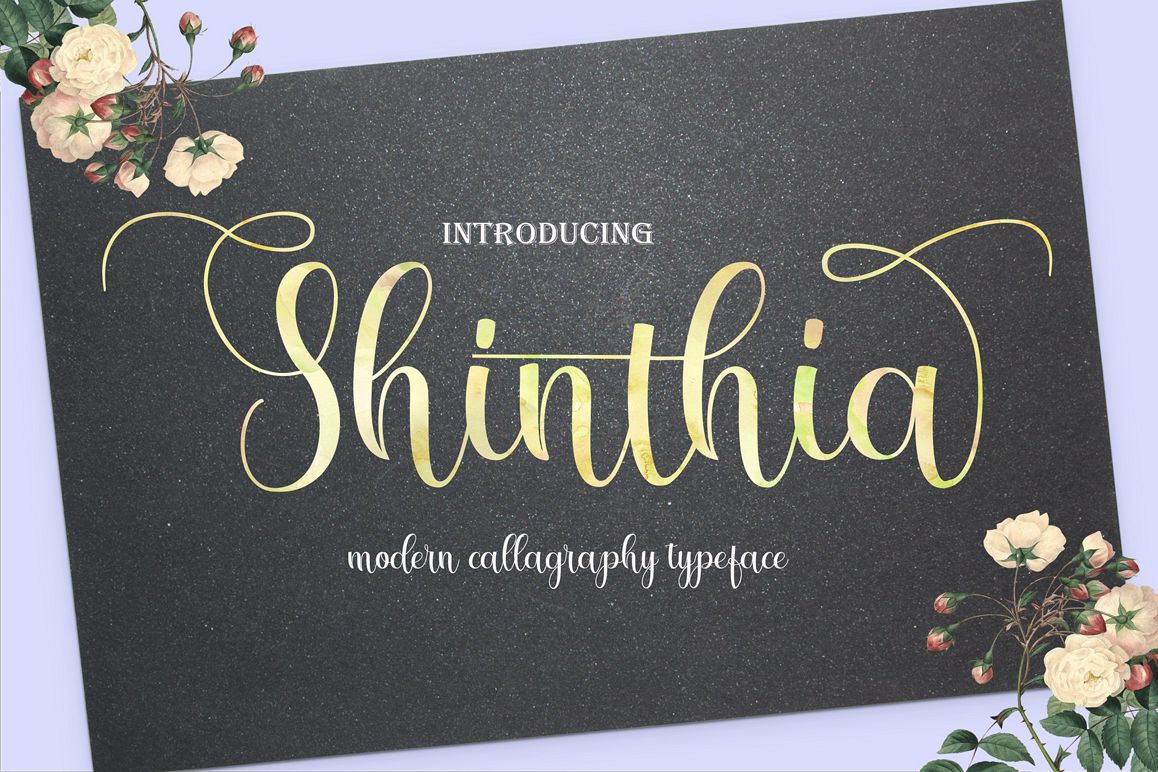
Shinthia FontDou
Shinthia
Hello All!!Introducing!!Shinthia FontDuo is the font style handmade dancing and then live trace to have unique forms of calligraphy, the writing style is very natural.The Features of this fonts is;
• Standart ligatures
• Stylistic sets
• Swash
• PUA Unicode (Private Use Areas)